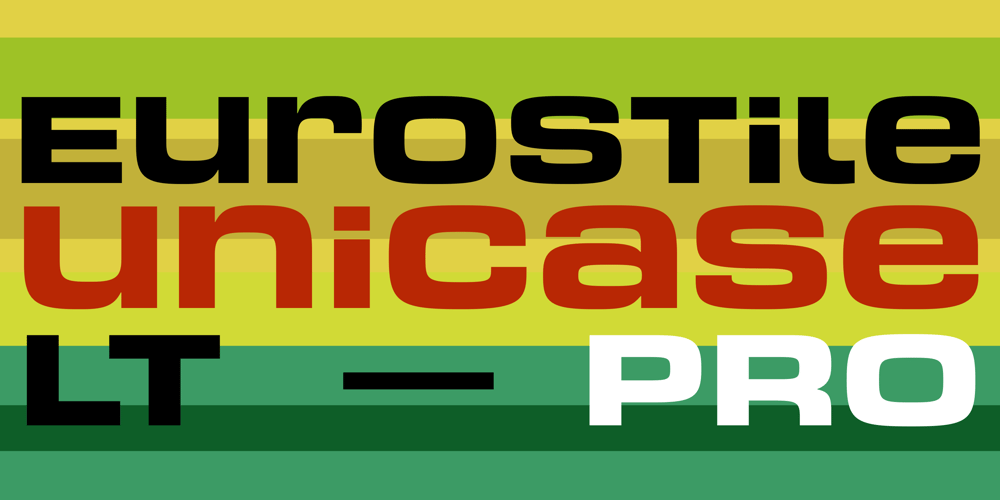
Eurostile Unicase Font Family was designed by Akira Kobayashi and published by Linotype. Eurostile Unicase contains 1 styles and family package options. Akira Kobayashi modified his Eurostile Next design into a fun unicase version. Ascenders and descenders have been traded in for alternates of letters that all share the same height. The effect is similar to using all caps, although this is quite a bit more quirky. For example, letters like the lowercase a and e are now the same height as their capital versions and the lowercase y has been raised to fit between the baseline and top height. Odd relationships such as these give Eurostile Unicase a fresh and funky feeling. Try using it for headlines and titles, then use Eurostile Next for the body text!